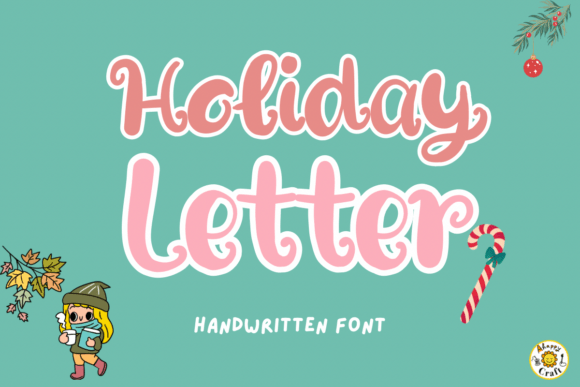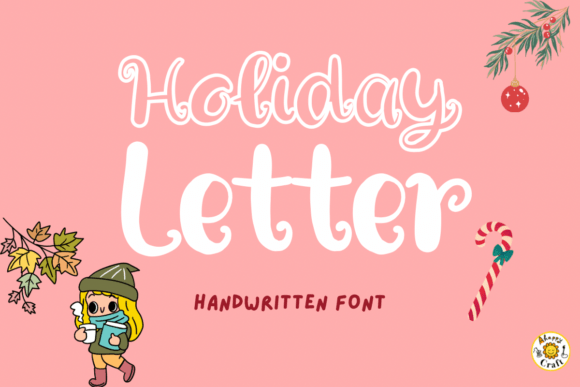
Introduction to Holiday Letter Font
Have you ever stumbled upon a beautifully handwritten font that instantly sparks your creativity? For designers, finding the perfect font can be a game-changer. It’s that moment when everything falls into place, and your design starts to shine. For me, that moment happened when I discovered the Holiday Letter Font – a lovely and timeless handwritten font that has been a staple in my design toolkit ever since.
This enchanting font is more than just a design resource; it’s a high-quality addition to any creative project. With its unique and beautiful touch, every letter comes alive, making it the perfect choice for creating eye-catching logos, branding, and quotes. Whether you’re working on a free download or a paid project, the Holiday Letter Font is sure to elevate your design to the next level.
One of the best things about this font is its versatility. With a transparent background, you can easily customize it to fit your design needs. Whether you’re a seasoned designer or just starting out, the Holiday Letter Font is a valuable asset that’s sure to inspire your creativity and bring your designs to life.
Key Features of Holiday Letter Font
- High-quality design resource ideal for creative projects and festive occasions.
- Features a transparent background, making it easy to layer over different backgrounds and designs.
- Unique characteristics include ornate details and intricate designs, perfect for adding a touch of elegance to your holiday letters.
- Designed specifically for use in digital and print media, making it a versatile choice for various creative projects.
Honest Review: Holiday Letter Font
I recently had the chance to try out the Holiday Letter Font, and I’m excited to share my thoughts on this design resource.
What works well: ✨ The font is a great addition to any creative project, especially during the holiday season. The high-quality design is perfect for making your letters stand out, and the transparent background makes it easy to use with any background image or color.
What I like about this font is that it’s free to download, making it a great option for designers on a budget. The font also comes in a range of styles, from cursive to block letters, giving you plenty of options to choose from.
Here are some of the key features I liked:
- Range of styles available
However, I did encounter a few limitations: ⚠️ The font could benefit from more customization options, such as font size and color. Additionally, the font may not be suitable for use in all types of creative projects.
Overall, I’m impressed with the Holiday Letter Font, and I think it’s a great addition to any designer’s toolkit. With its high-quality design and free download option, it’s a must-have for any creative project.
To get the most out of the Holiday Letter Font, experiment with different font sizes, colors, and styles to create visually appealing designs. You can also pair it with other design elements, such as images and graphics, to create a cohesive look.
The Holiday Letter Font is commonly used for holiday-themed designs, such as Christmas cards, Hanukkah invitations, and New Year’s Eve party invitations. It’s also a great resource for designers who want to create high-quality, creative projects with a festive touch.